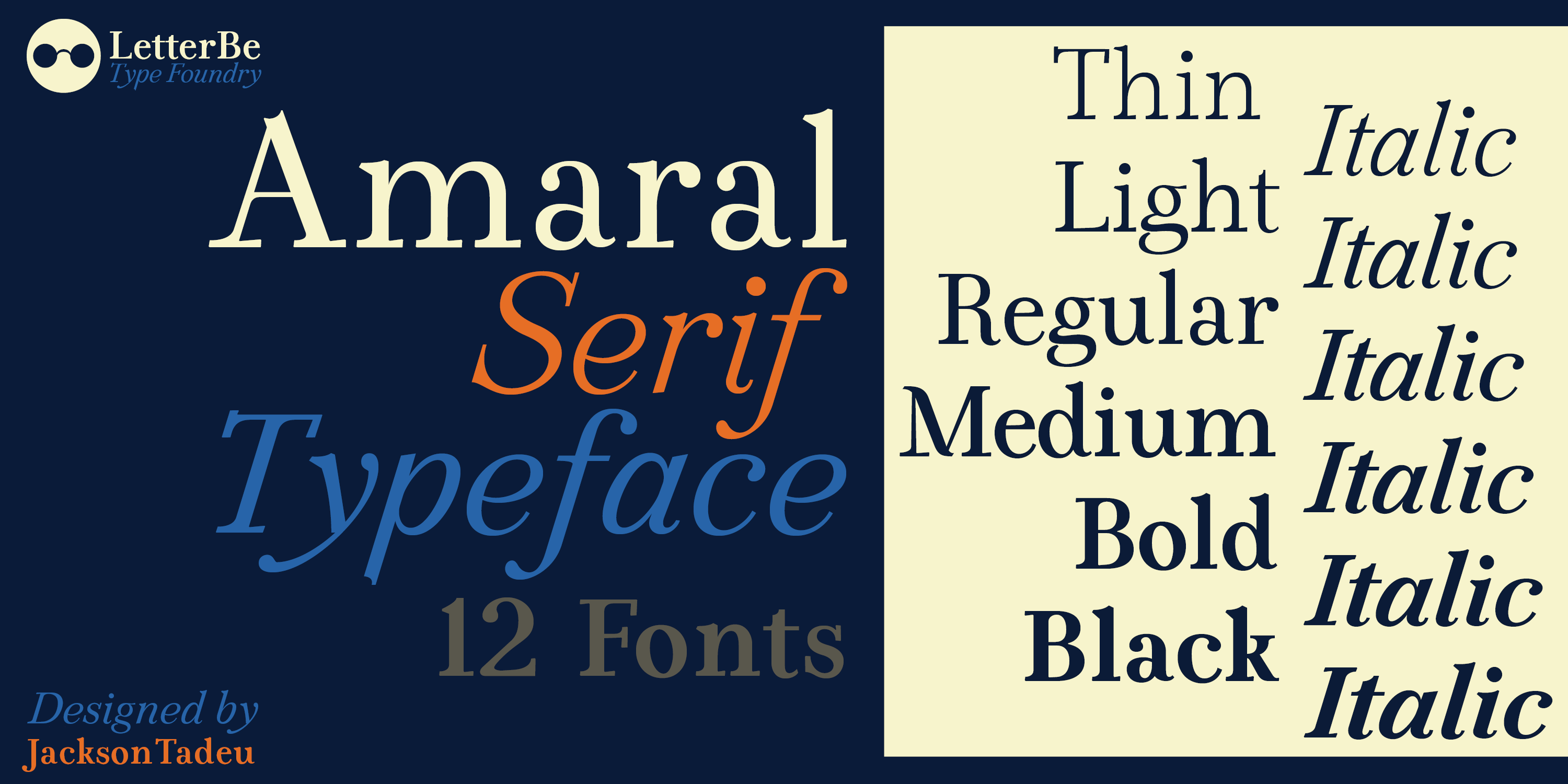
Amaral Font is perfect for Portuguese cultural heritage branding, Latin American restaurant marketing, Brazilian music venue promotions, Iberian wine estate communications, Portuguese tourism campaigns, and authentic Latin cultural celebrations. Its cultural character makes it ideal for Portuguese cultural centers, Latin American businesses, Brazilian cultural organizations, Iberian heritage foundations, and any application requiring warm typography that conveys Latin warmth, Portuguese elegance, and the rich cultural heritage of Portuguese-speaking communities and Iberian Peninsula traditions.
Amaral Font is exciting because it captures the warm elegance and cultural richness of Portuguese heritage through gracefully crafted letterforms that reflect the sophisticated artistry and passionate expression characteristic of Latin cultures. Its warm proportions and culturally-inspired details evoke the romantic atmosphere of Portuguese cities and the vibrant energy of Latin American celebrations, making it perfect for brands celebrating authentic Portuguese and Latin cultural identity. The font's cultural character transforms communications into expressions of Latin warmth and heritage pride.
Amaral Font family includes culturally-warm weight variations typically featuring Light, Regular, Medium, and Bold options with Latin styling that maintains Portuguese authenticity. The family often incorporates Iberian symbols, Portuguese ornaments, and Latin cultural elements designed for heritage applications, providing designers with comprehensive tools for creating authentic, Portuguese culture-focused typographic compositions.
When selecting Portuguese Latin typography solutions, Amaral Font Free Download represents an exceptional choice for Iberian heritage and Latin cultural projects. This warm typeface brings instant Portuguese cultural authenticity to any design, making it invaluable for Portuguese businesses, Latin American organizations, and cultural institutions celebrating Iberian heritage. Whether you're developing Portuguese restaurant branding, creating Latin cultural festival materials, or designing Portuguese tourism campaigns, Amaral Font provides the cultural warmth and Portuguese authenticity essential for honoring Latin heritage in today's multicultural Portuguese-speaking marketplace.